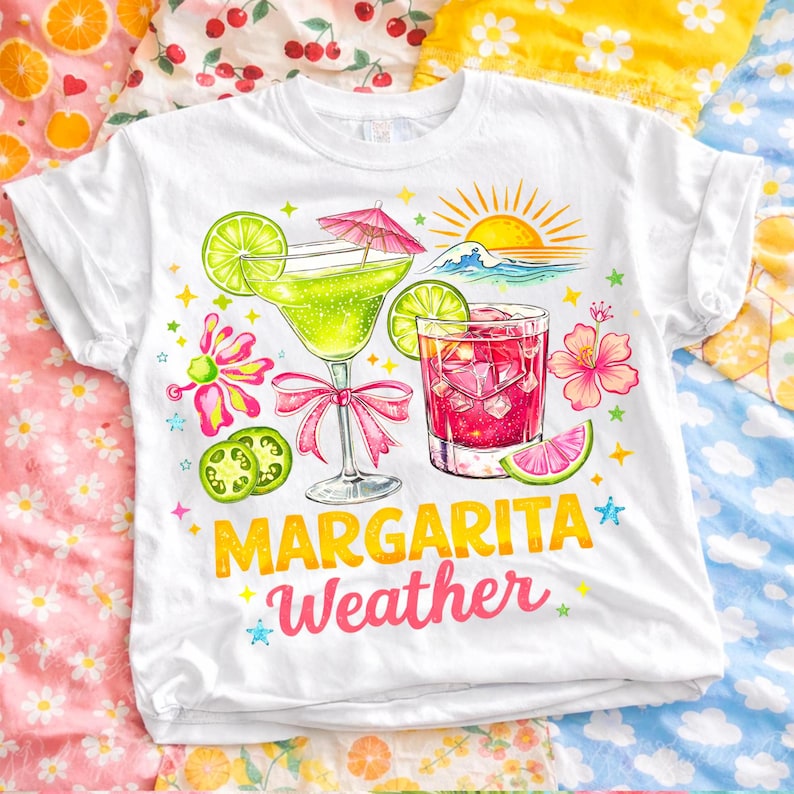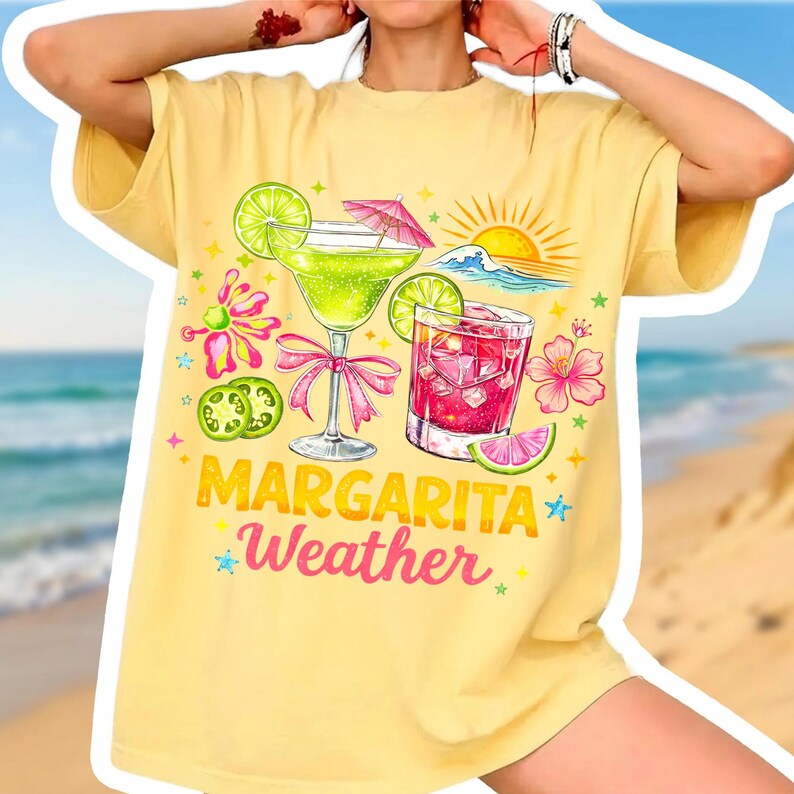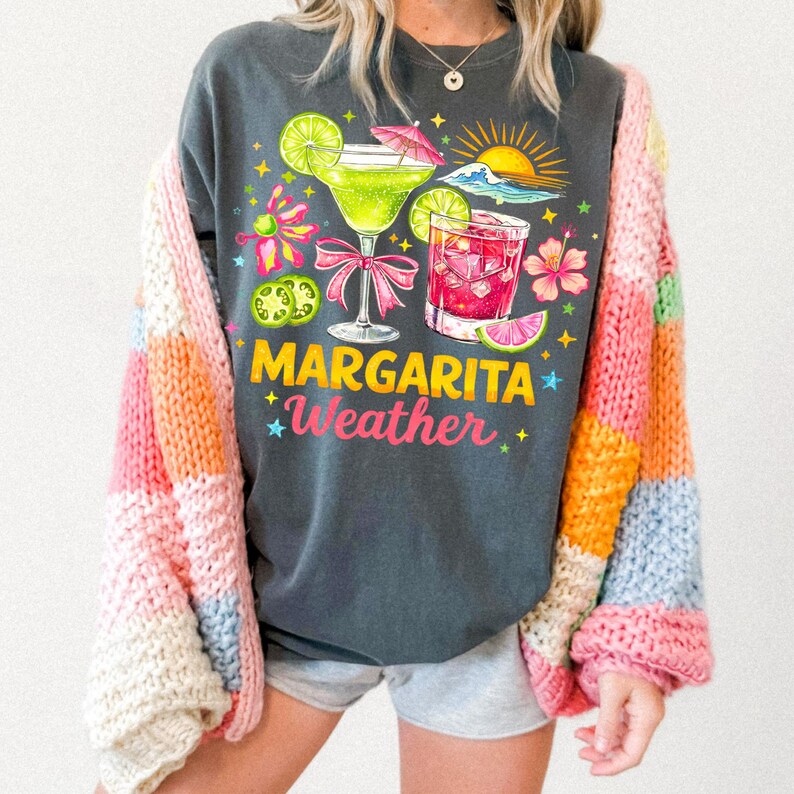
Unleash Summer Fun: The Ultimate Margarita Weather PNG Alphabet Bundle for Crafters
As the sun climbs higher and the days grow longer, there’s an undeniable energy in the air – it’s “Margarita Weather”! For every creative entrepreneur and DIY enthusiast looking to infuse their projects with the vibrant spirit of summer, this Summer Margarita Weather PNG Alphabet Bundle is your ultimate design companion. Imagine transforming ordinary items into extraordinary celebrations of sunshine, relaxation, and retro beach vibes. This isn’t just a font; it’s an entire aesthetic, meticulously crafted to bring a preppy, playful charm to all your sublimation and DTF designs. Get ready to captivate your audience and elevate your summer collection with a trendy flair that screams “beach day!”
Dive into Design & Endless Creativity with Preppy Brushstroke Aesthetics
At the heart of this collection lies a truly unique design philosophy: a preppy brushstroke aesthetic* combined with a **retro beach vibes** sensibility. Each letter and number in this comprehensive **PNG alphabet bundle** boasts a beautiful hand-painted brushstroke texture, giving your creations an authentic, artisanal feel. The vibrant tropical colors burst with life, instantly evoking images of sun-kissed shores and refreshing drinks. This isn’t just a simple font; it’s a *trendy summer font PNG that includes a full A-Z letter set and matching 0-9 festive numbers, offering limitless possibilities for custom text and designs. Crafted with premium sublimation quality and featuring a transparent background, these high-resolution 300 DPI files ensure crisp, professional results every time, whether you’re working on intricate details or bold statements.
Craft Your Perfect Summer Story: Versatile Projects & Instant Access
The versatility of the Summer Margarita Weather PNG Alphabet Bundle* makes it an indispensable tool for crafters and e-commerce businesses alike. Are you dreaming of creating custom summer vacation shirts that stand out? Or perhaps preppy beach tote bags that are as stylish as they are functional? This *sublimation design is also perfect for crafting tropical party invitations, sunkissed tumbler wraps, and girly aesthetic apparel that resonates with lovers of coastal decor projects. From vibrant shirts and cozy hoodies to charming mugs and home decor, the possibilities are only limited by your imagination. Designed for crafters who adore beach days and retro-girly aesthetics, this bundle provides an instant digital download, meaning you can jump straight into designing without delay. With no watermarks to contend with, your creative flow remains uninterrupted, allowing you to bring your unique vision to life with ease.